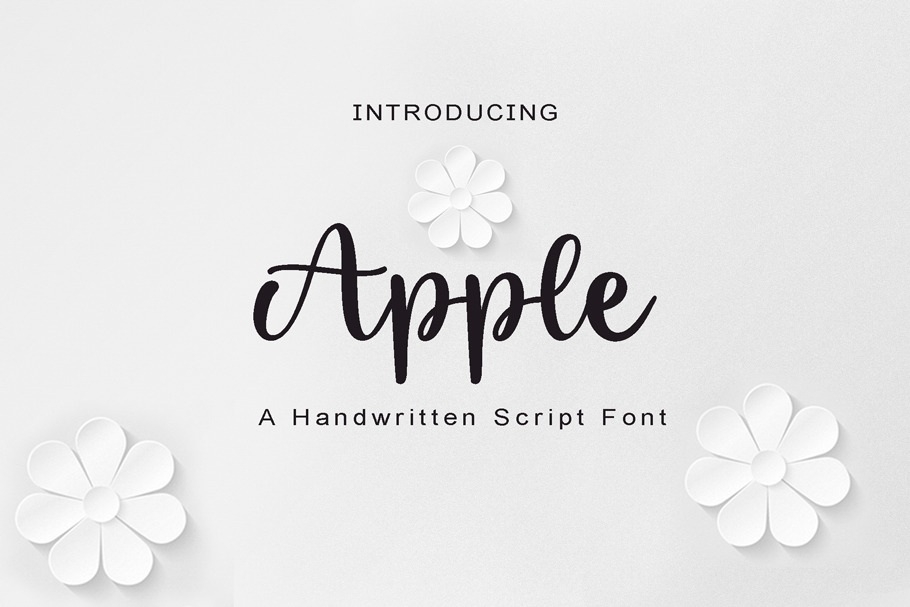
Apple is a handwritten font with a fun, modern look! It is defined by smooth curves and is perfect for fashion branding or editorial designs. Add it confidently to your projects, and you will love the results.
This font is perfect for quotes, shirt designs, websites, branding, children's designs, wedding decor, home decor, blogs, logos, invitations and more!
This gorgeous font includes all lowercase and uppercase characters, numbers, punctuation, an array of standard ligatures and a selection of international characters as well (please type in the preview below to see if I have what you need!)